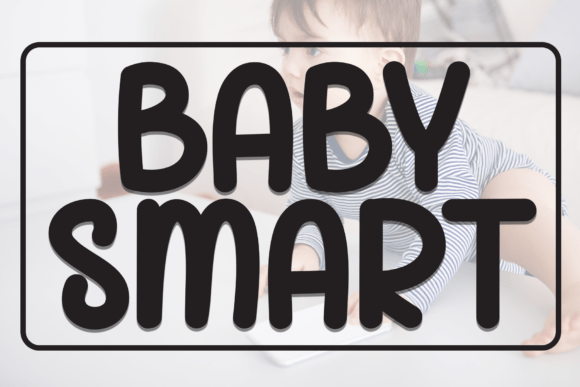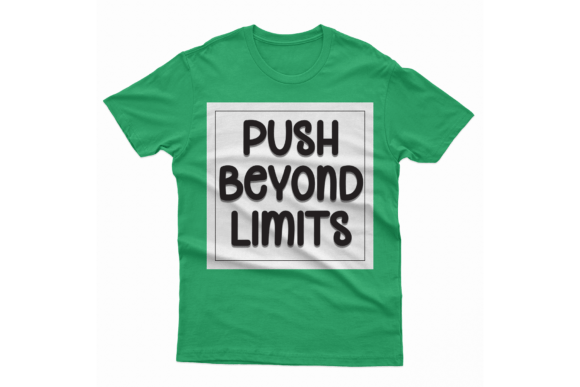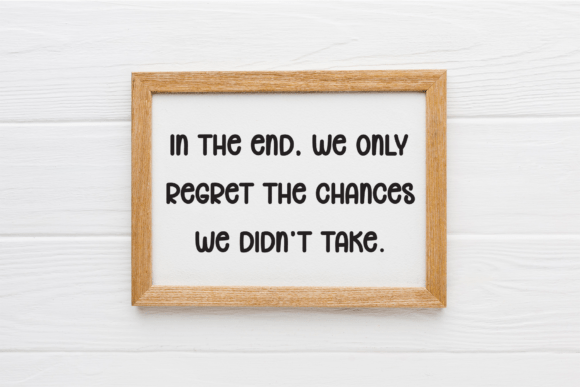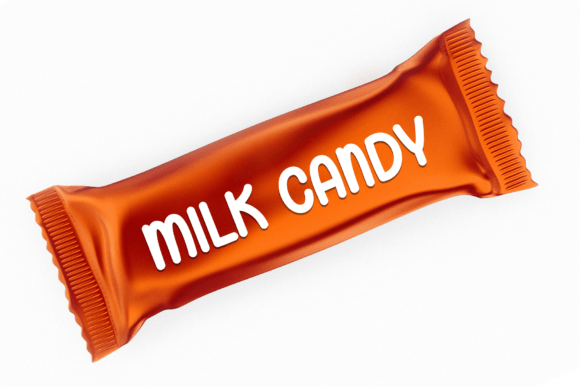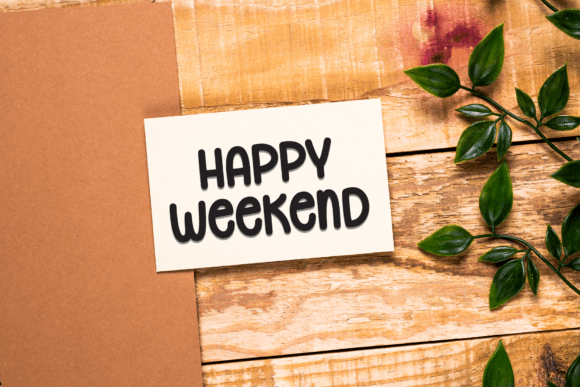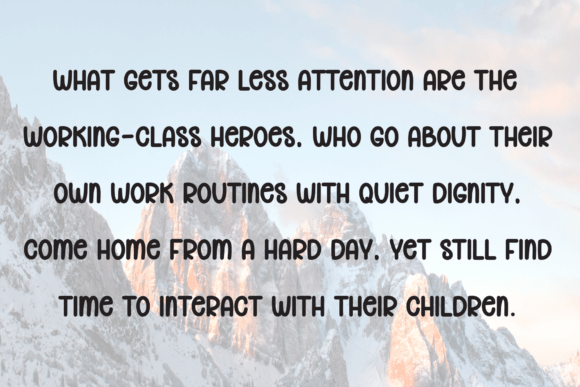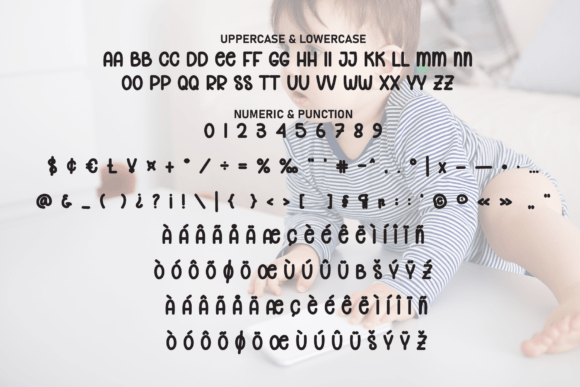
The Perfect Alphabet for Little Minds
Remember the moment you first held a crayon in your tiny hands, and the world of color and imagination opened up before you? That’s the magic we want to capture with the Baby Smart Font.
Designed specifically for kids-themed designs, this bold and rounded display font is a game-changer for designers looking to create engaging visuals for children. Its friendly, chunky letters make it highly readable, perfect for children’s books, toys, packaging, and educational materials. The playful design radiates warmth and approachability, making it ideal for early learning visuals and fun branding.
Whether you’re creating a new children’s book or designing a toy box, the Baby Smart Font is a valuable tool for designers looking to create a lasting impression on young minds.
Baby Smart Font Key Features
- Unique Character Set: The Baby Smart Font includes a custom-designed set of characters and symbols tailored for baby-related content, making it ideal for parenting and childcare applications.
Baby Smart Font Review
As a designer, I was excited to dive into the world of Baby Smart Font, a font designed specifically for parents and caregivers. Here’s my honest review.
- The font is clean and modern, making it perfect for digital displays and print materials.
- The designers have included a range of weights and styles, allowing users to customize the look and feel of their content.
- The font is highly legible, even at small font sizes, which is essential for a font designed for parents and caregivers.
- The font lacks a strong personality, making it feel somewhat generic and unremarkable.
- The range of languages supported is limited, which may be a drawback for users who need to display content in multiple languages.
- The font does not include any unique features or flourishes that would set it apart from other sans-serif fonts.
Baby Smart Font is a solid, no-frills font that gets the job done. While it lacks a strong personality and some unique features, it is highly legible and customizable. If you’re looking for a clean and modern font for your parenting or caregiving content, Baby Smart Font is a good choice. However, if you’re looking for a font with a strong personality or unique features, you may want to look elsewhere.
Baby Smart Font is perfect for creating engaging and playful designs for children’s products, nursery decor, and educational materials. Use it to create eye-catching titles, headings, and body text for your projects.
To get the most out of Baby Smart Font, experiment with different font sizes, colors, and styles to create a unique and engaging visual identity. Pair it with other playful fonts or graphics to add an extra touch of whimsy to your designs.